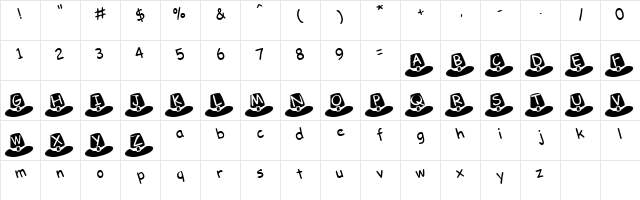
Pilgrim Hats Regular
Design Context for Pilgrim Hats Typeface
Pilgrim Hats is a composed and adaptable typeface that performs quietly and consistently across a wide range of design contexts.